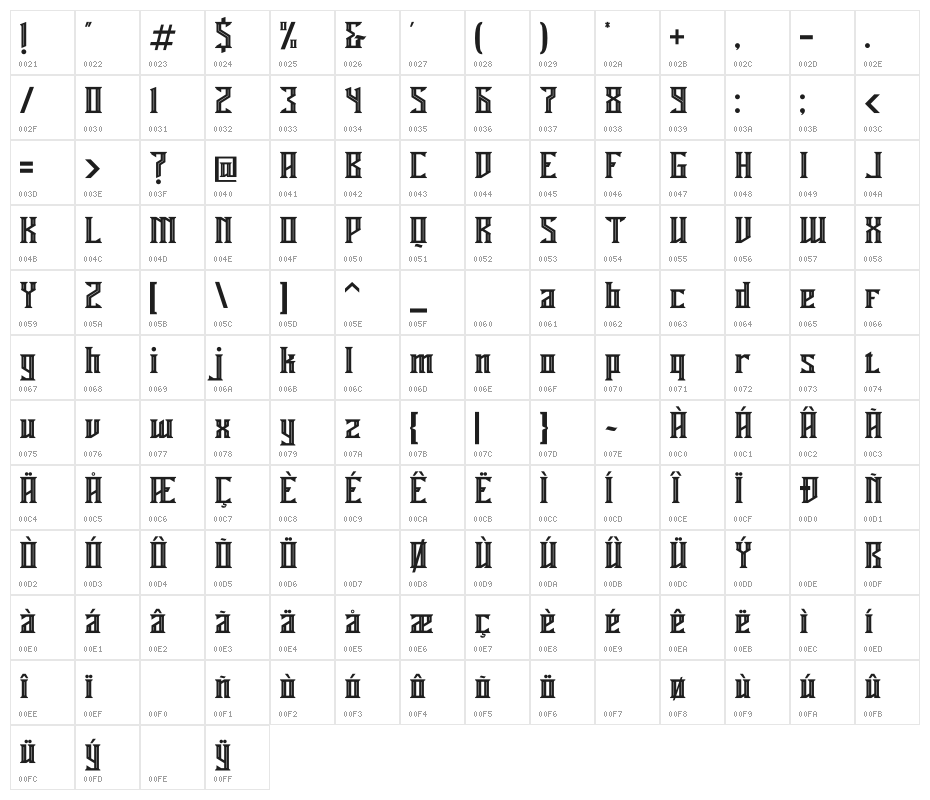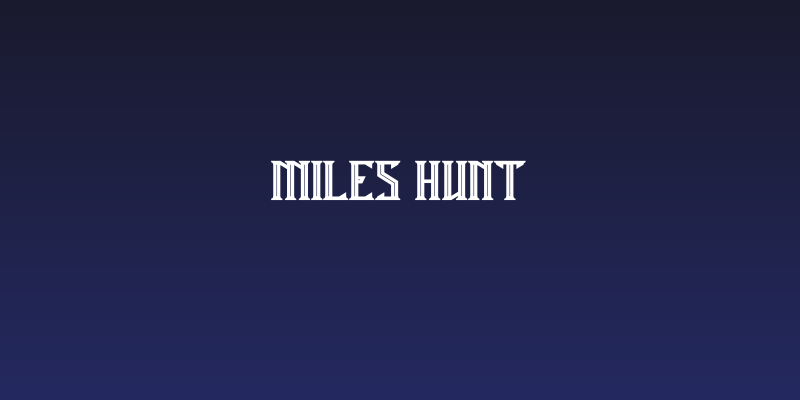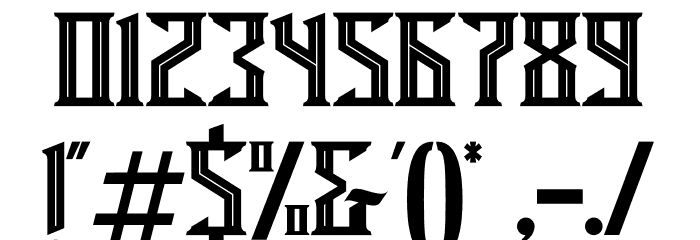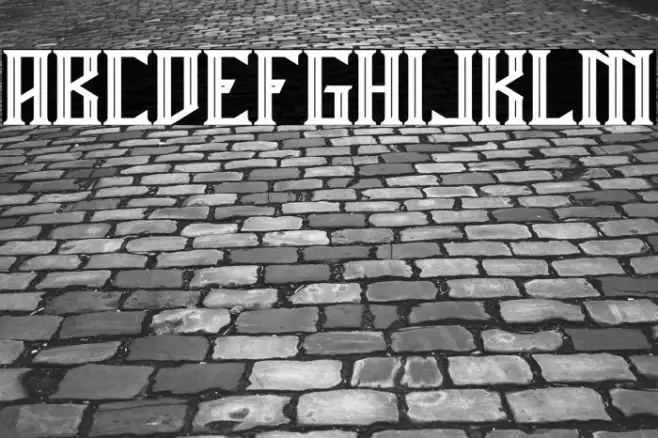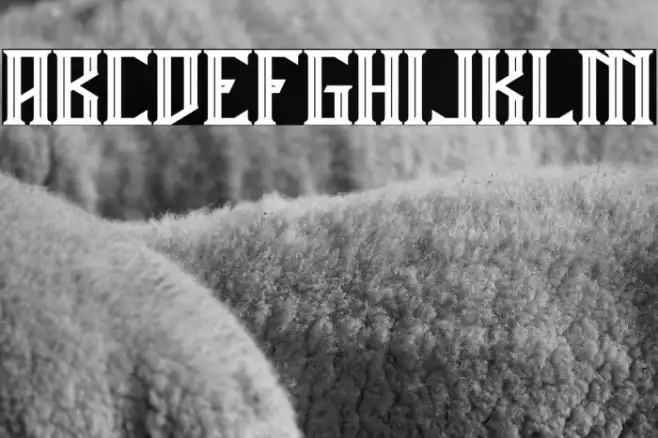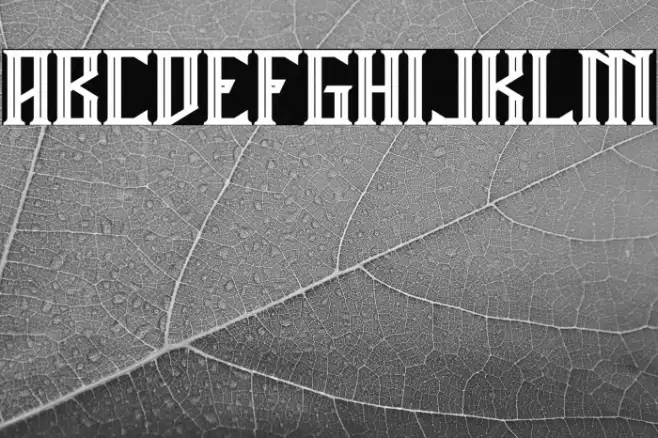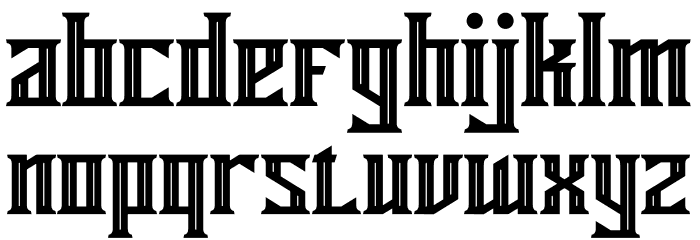
Miles Hunt Font
Miles Hunt Description
This font features a bold, angular design with a strong presence, characterized by its sharp edges and geometric shapes. The uppercase letters are tall and narrow, giving a sense of height and structure, while the lowercase letters maintain a consistent style with slightly more curves. The numbers and special characters follow the same angular theme, ensuring a cohesive look across all characters. The overall aesthetic is reminiscent of Gothic or medieval styles, with a modern twist that makes it suitable for contemporary designs. The font's unique style makes it stand out, perfect for projects that require a bold and distinctive typeface.
| Overall Style | Modern Gothic |
| Proposed Projects | Ideal for branding, posters, album covers, and any project needing a striking, memorable typeface. |